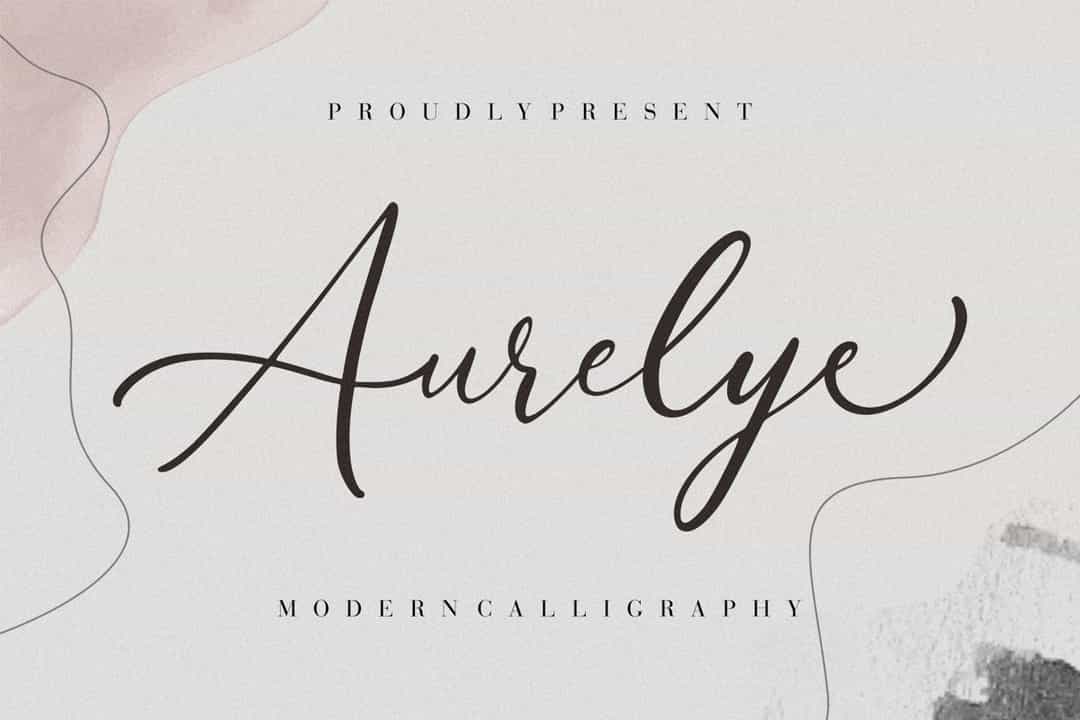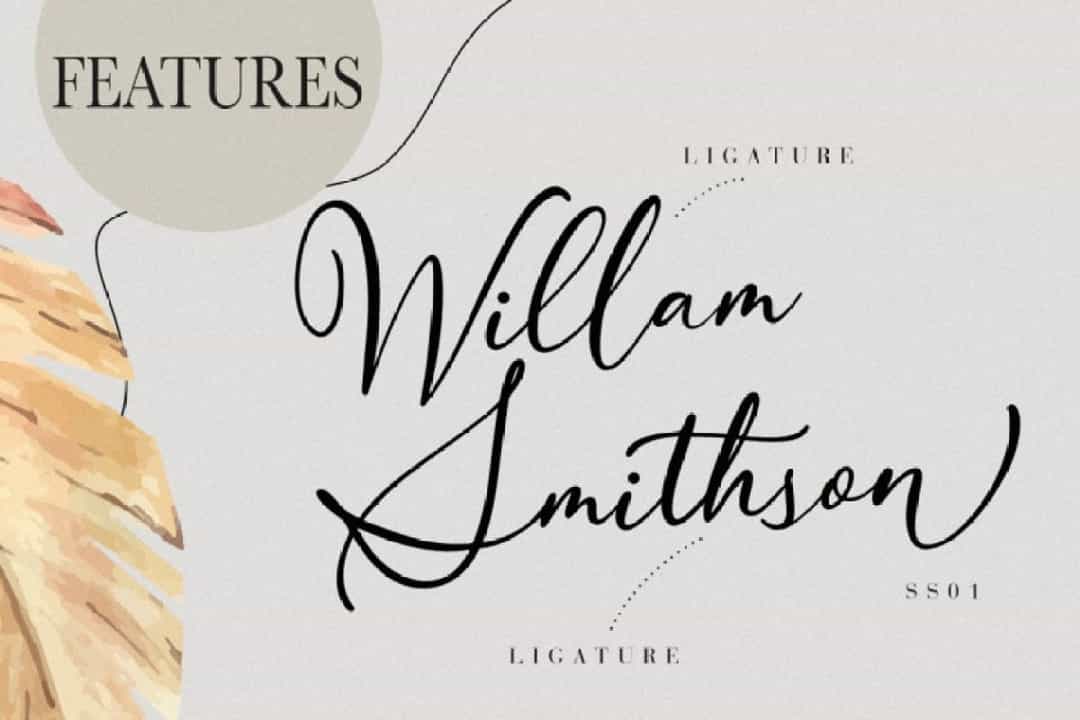
Aurelye is a modern script typeface with many elegant alternatives and ligature symbols, making it the perfect font choice for logos, branding, wedding designs and social media posts, advertisements, packaging for products, designs, labels, invitations, stationery as well as any projects requiring handwriting skills.